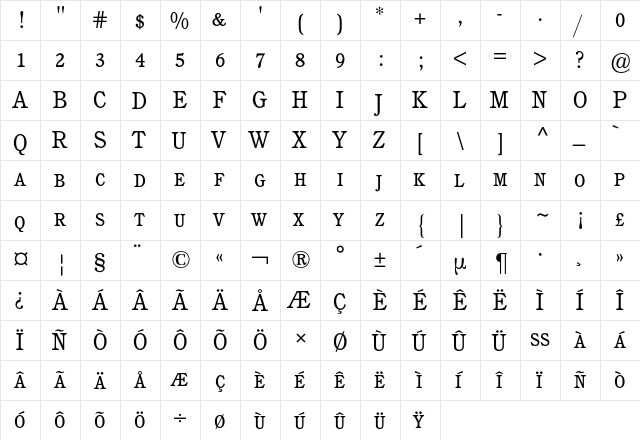
Cushing Expert BQ Regular
Design Context for Cushing Expert BQ Typeface
Cushing Expert BQ takes a measured approach to typography — its balanced proportions and neutral character make it a reliable workhorse for both digital and print work.